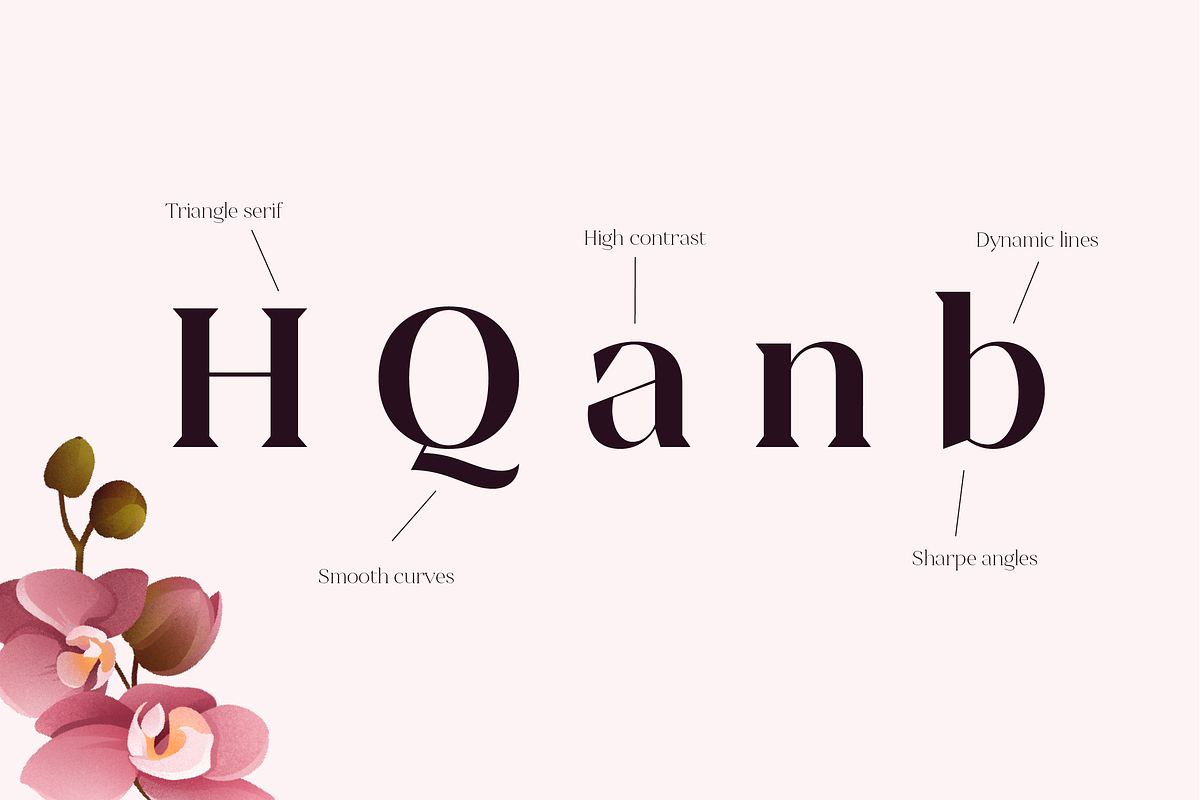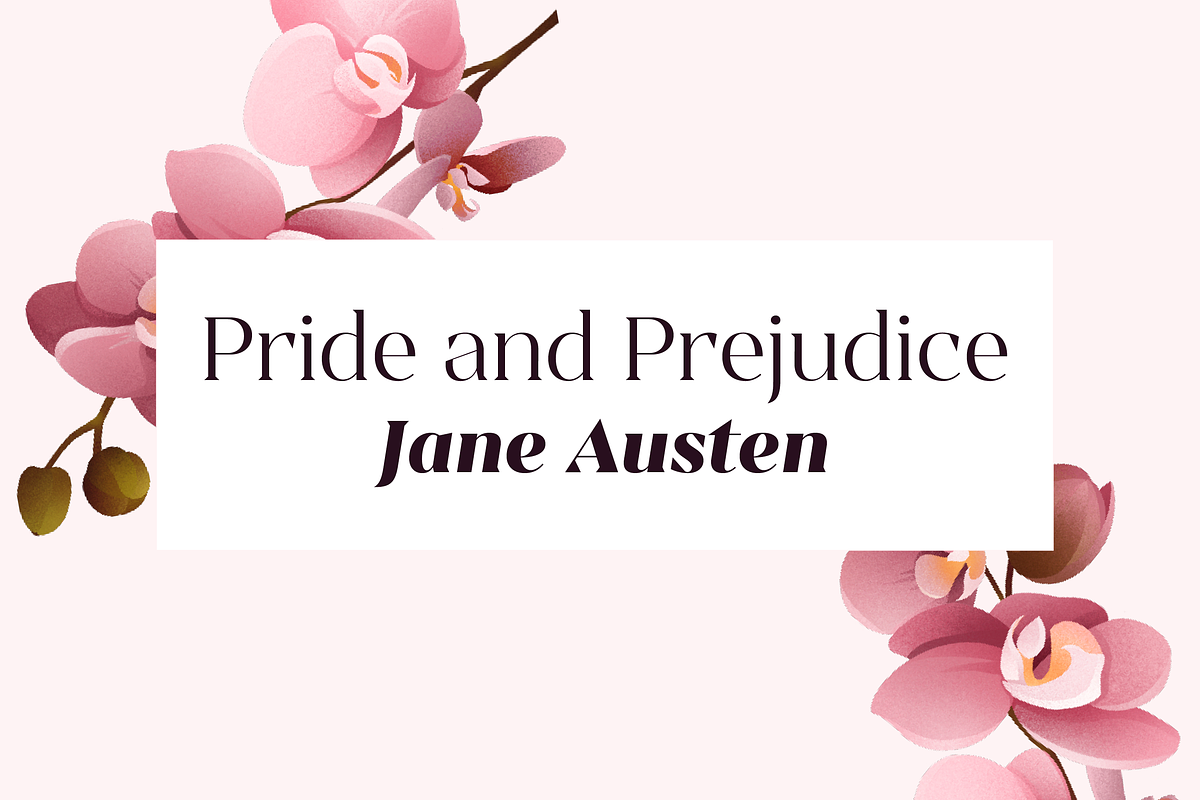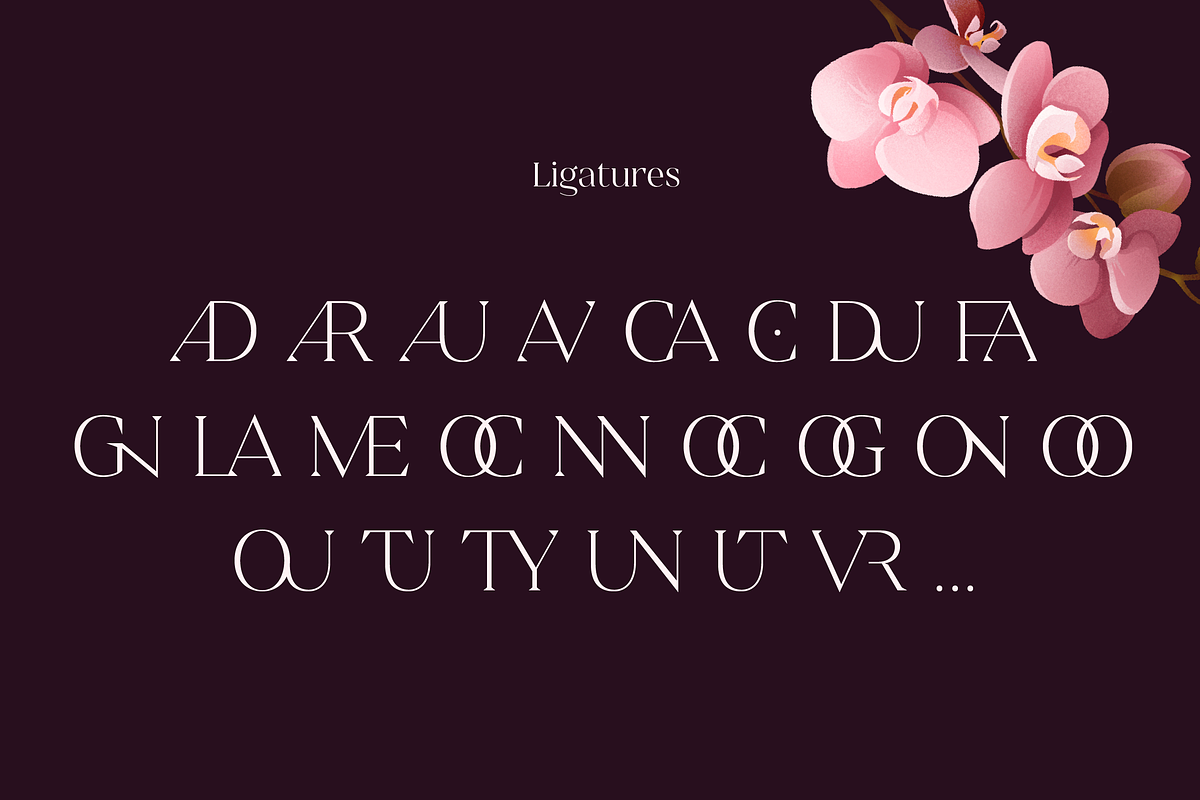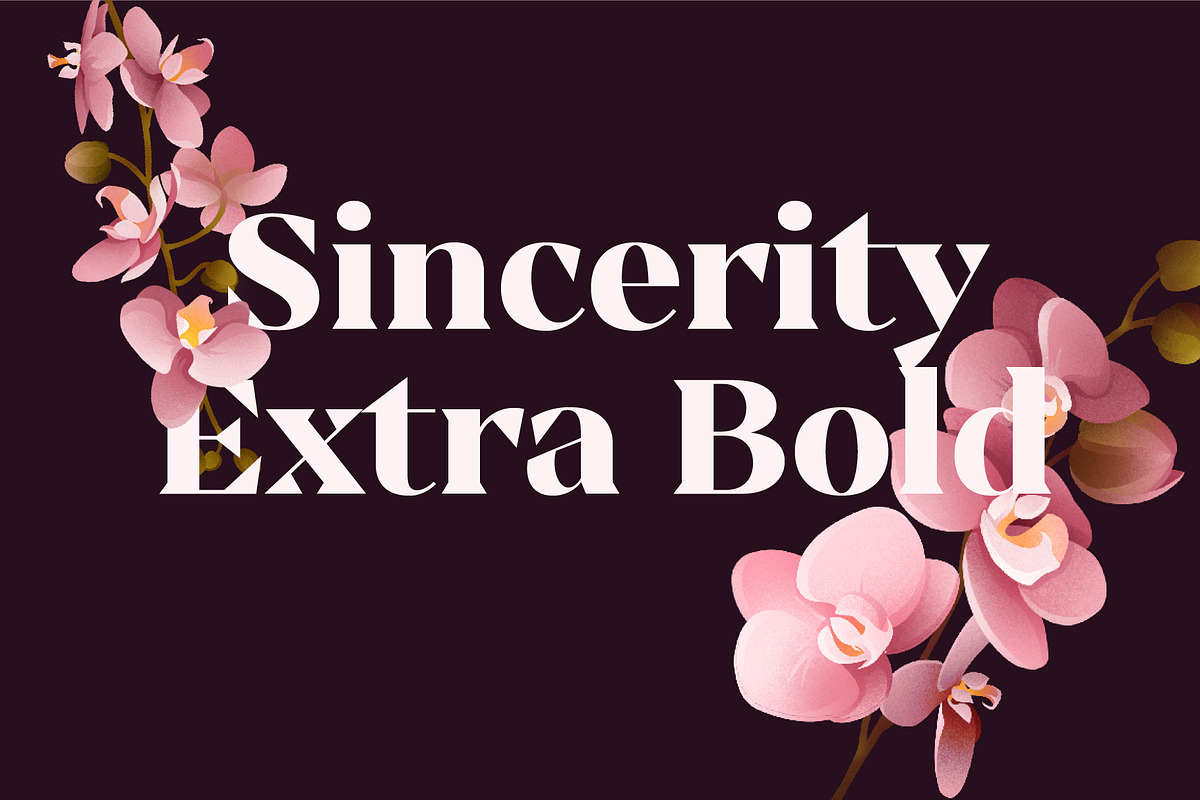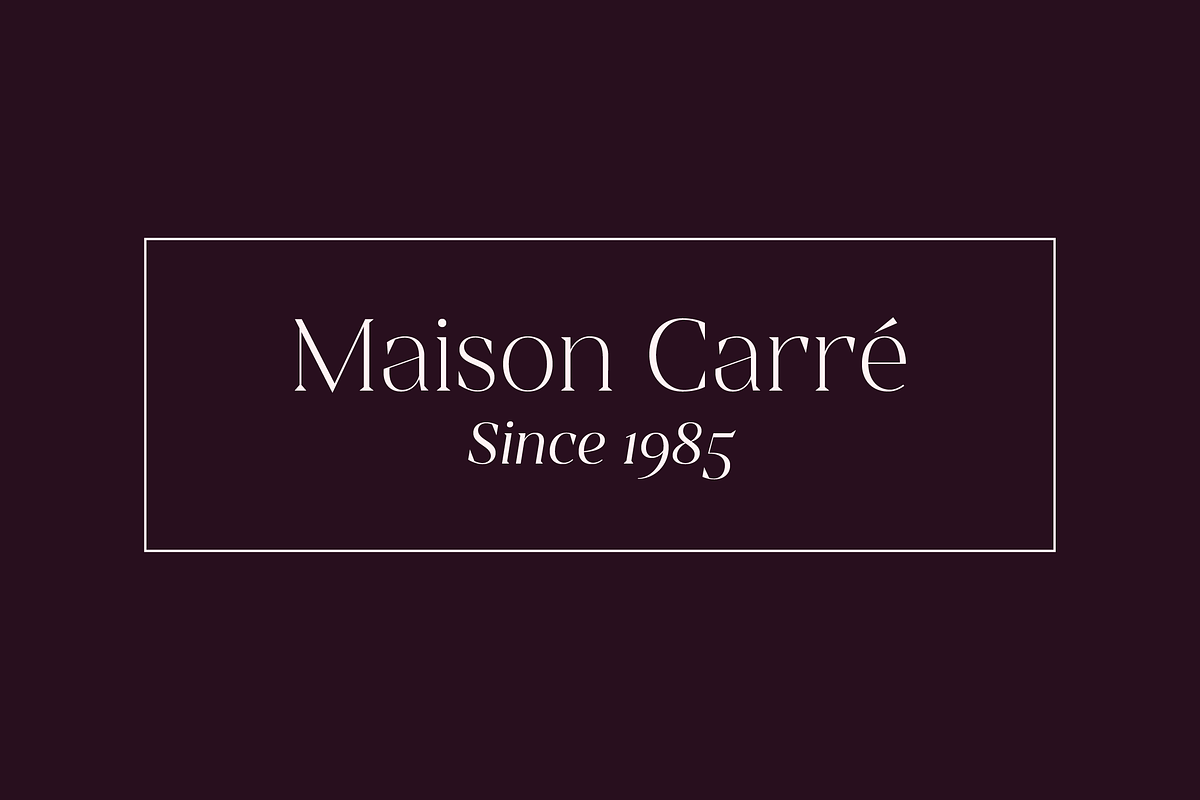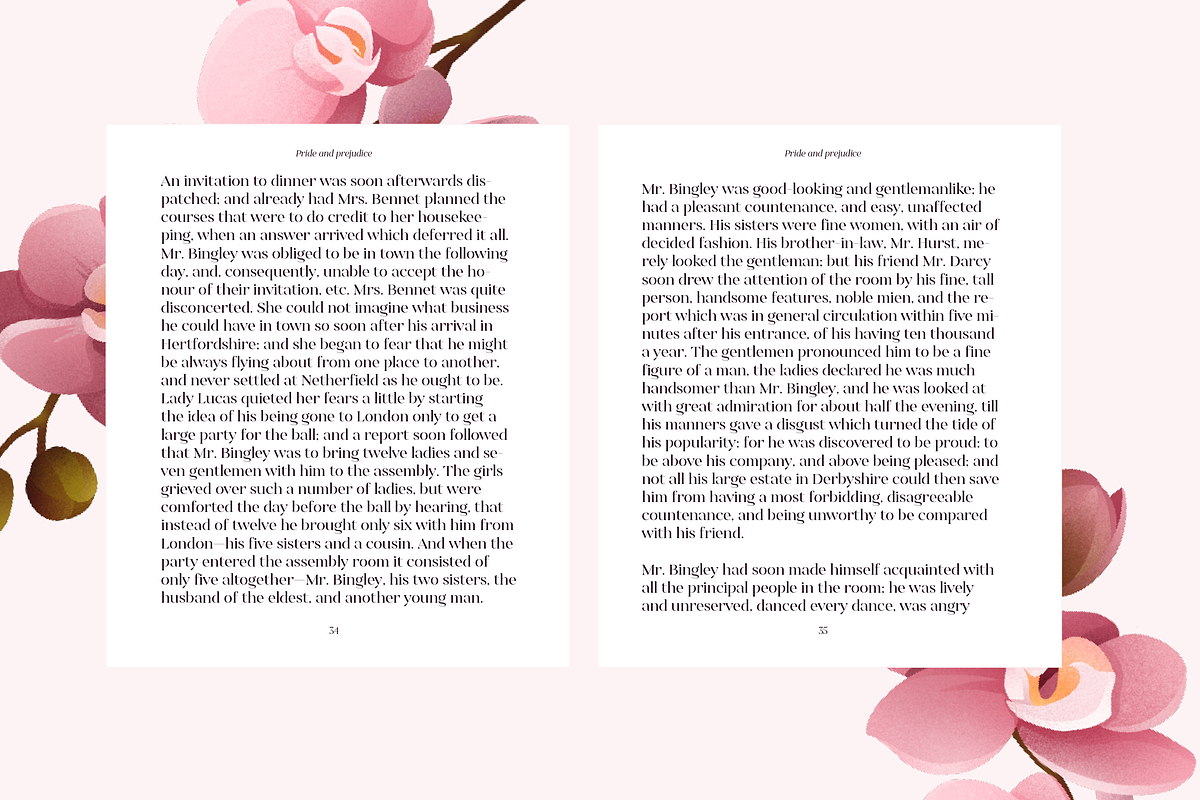
Sincerity Extra Bold
Sincerity is an elegant and strong typeface identified by its high contrast, its sharp shapes and triangular serifs. Inspired by the Didone style, Sincerity adds modernity and some unique features to it. It offers a large choice of uses, from titles of magazines to newspapers, logotypes and so on.